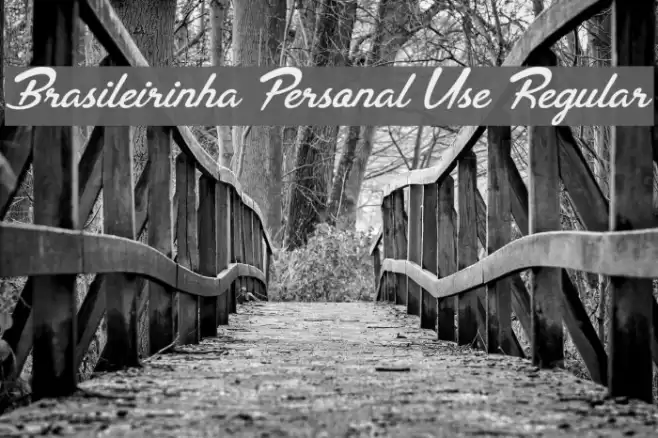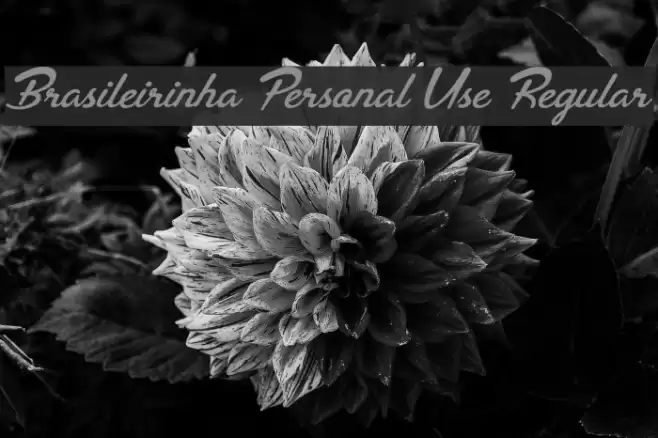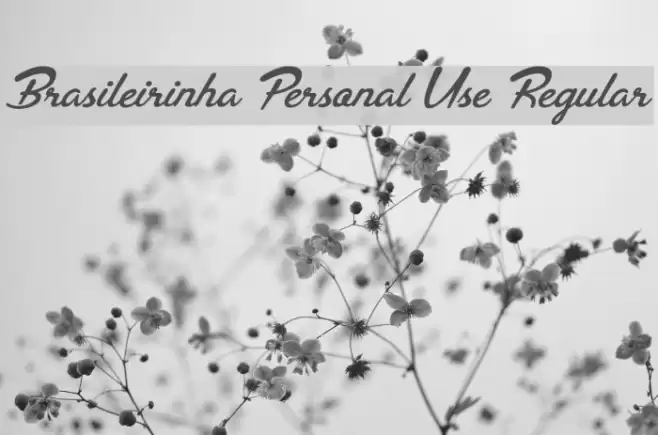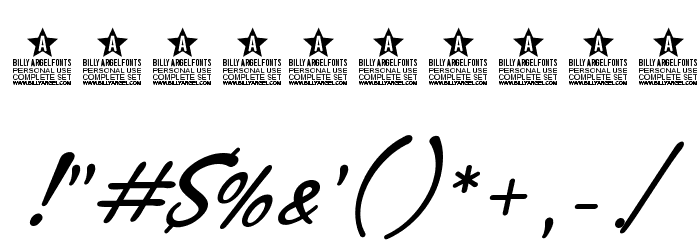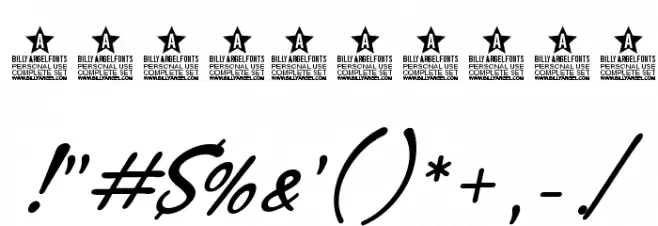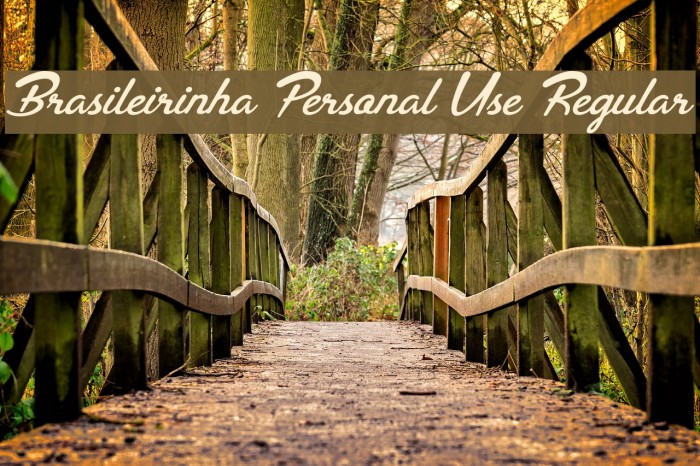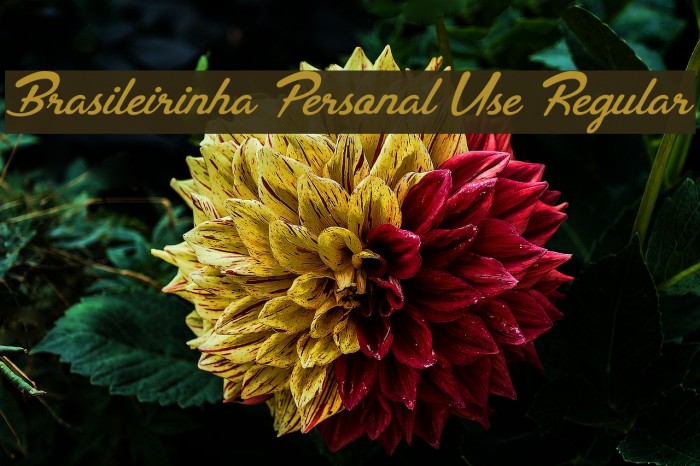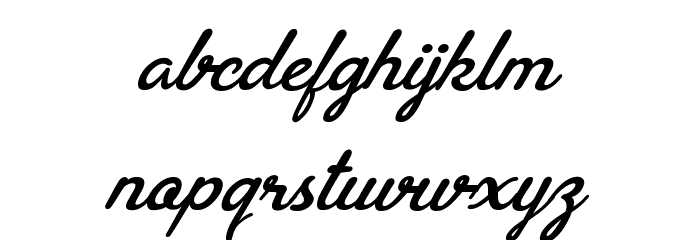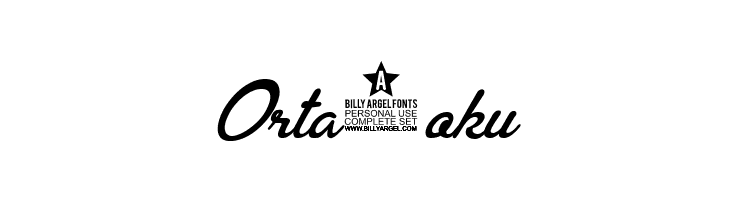
Brasileirinha Personal Use Regular Font
Brasileirinha Personal Use Regular Description
This font features a dynamic and flowing script style, characterized by its elegant and cursive letterforms. The uppercase letters are bold and sweeping, with a slight slant that adds a sense of movement and grace. The lowercase letters maintain a consistent style, with smooth curves and a connected flow that enhances readability. The numerals and special characters are designed to complement the overall aesthetic, maintaining the same fluidity and elegance. This font exudes a sense of sophistication and is ideal for projects that require a touch of class and style.
A dynamic and elegant script font with flowing, cursive letterforms from Uncategorized fonts.
- Proposed Projects: Ideal for wedding invitations, greeting cards, branding, and elegant logo designs.
- Overall Style: Elegant
- Use Case: Logos, Invitations, Branding